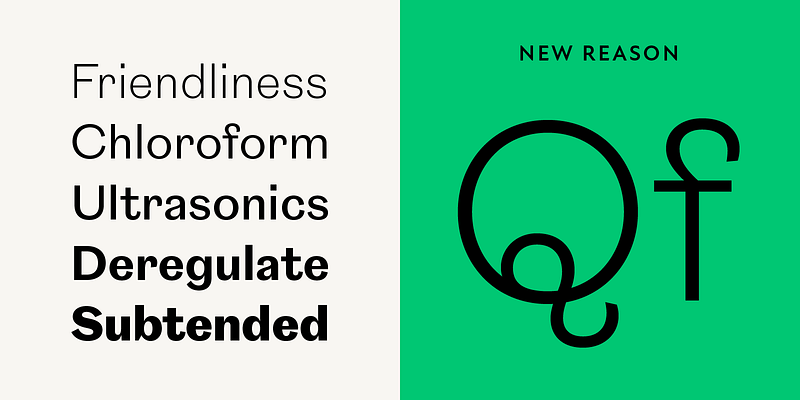
New Reason Font Free Download is a modern and stylish sans-serif typeface designed with simplicity and legibility in mind. With its clean, geometric letterforms and sleek lines, this font is perfect for a variety of design applications, including branding, editorial design, digital content, and advertising.
New Reason Font Free Download is versatile and highly readable, making it suitable for both large headings and smaller text. Its contemporary design makes it an excellent choice for projects that require a polished, professional look while maintaining a modern and approachable feel.
Whether you're designing for websites, social media, logos, or printed materials, New Reason offers a contemporary, stylish solution for your typography needs.